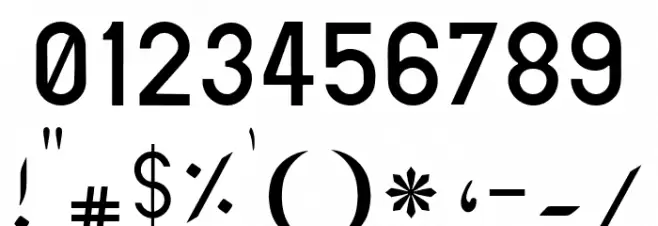
Amar Nastaleeq Font
Amar Nastaleeq Description
This font exhibits a clean and modern sans-serif style, characterized by its uniform stroke width and geometric shapes. The letters are well-balanced, with a consistent height and width that contribute to its readability. The numbers and special characters maintain the same design ethos, ensuring a cohesive appearance across all glyphs. The font's simplicity and clarity make it versatile for various applications, from digital interfaces to print media. Its straightforward design is devoid of any decorative elements, focusing instead on functionality and legibility.
A modern, clean sans-serif font with geometric shapes and uniform strokes.
- Proposed Projects: Ideal for digital interfaces, corporate branding, signage, and editorial design.